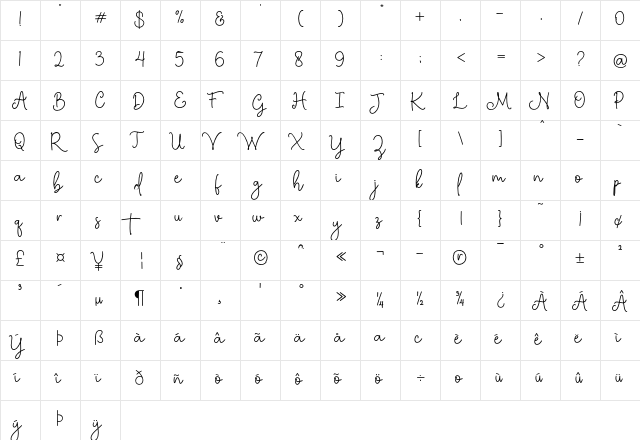
Bethany Signature Regular
Design Context for Bethany Signature Typeface
Bethany Signature takes a measured approach to typography — its balanced proportions and neutral character make it a reliable workhorse for both digital and print work.
Pro Tip: Use Bethany Signature in both headline and body roles to test its range before committing to a single application.